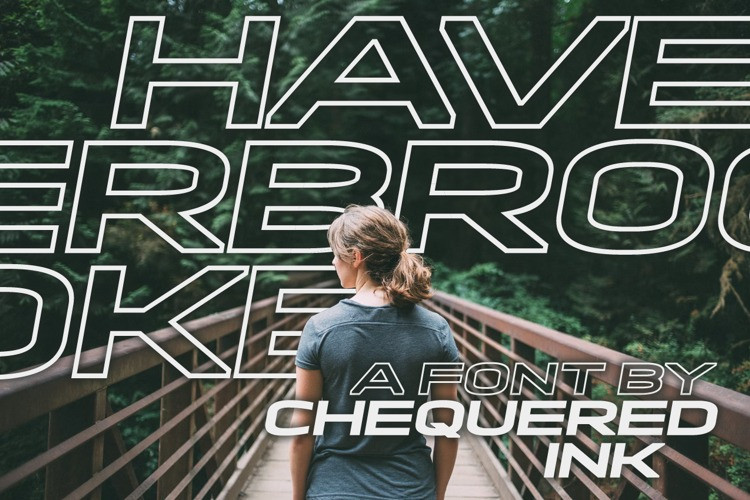
Haverbrooke Font
Haverbrooke Sans Serif Font, This bundle features strong, confident and powerful typefaces designed to work great with sports logos, club branding, apparel applications, labels and more.